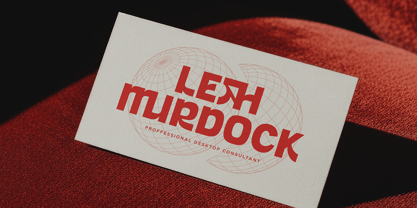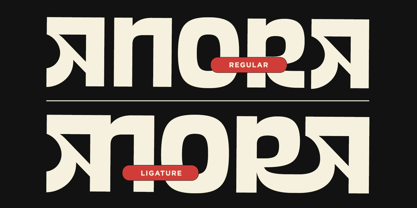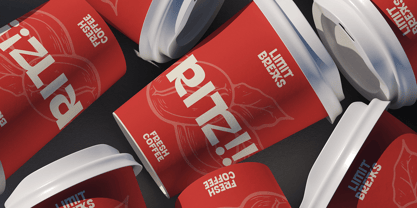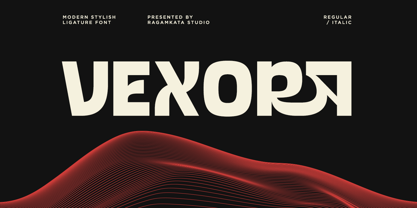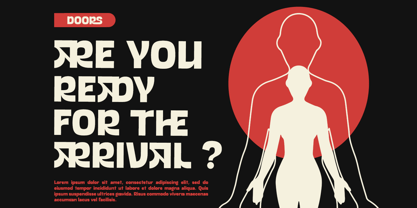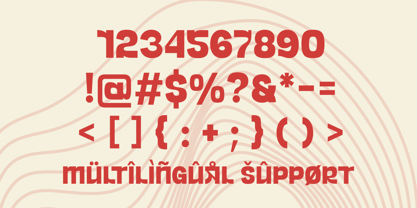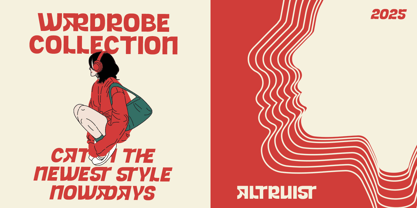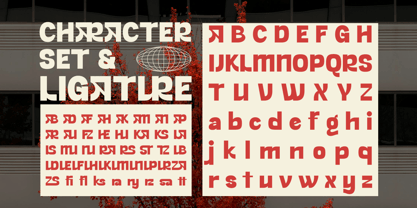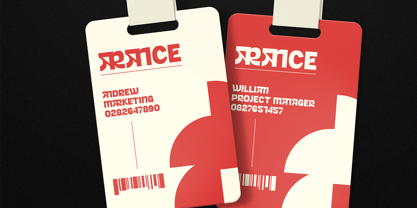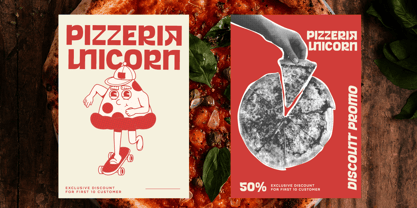
Vexora
by RagamKata
The Vexora Font Family was designed by Yogiswhara Dio Prakoso Riadi and published by RagamKata. Vexora contains 2 styles and family package options. More about this family
Vexora is a modern, stylish ligature display font that seamlessly blends bold geometric shapes with futuristic character forms, making it ideal for eye-catching creative projects. Its clean curves, sharp angles, and unique alternates provide every word with a striking, contemporary feel. This font is perfect for branding, logos, posters, album covers, tech themes, gaming visuals, apparel designs, packaging, headlines, and editorial layouts, ensuring a strong, modern personality in any project. Thank You! Ragamkata